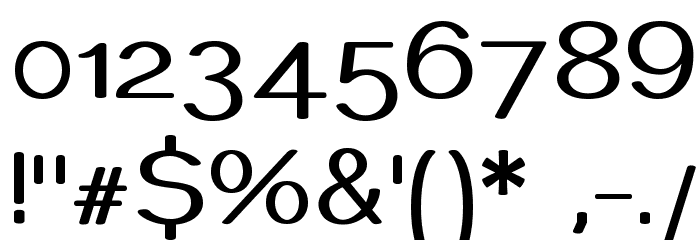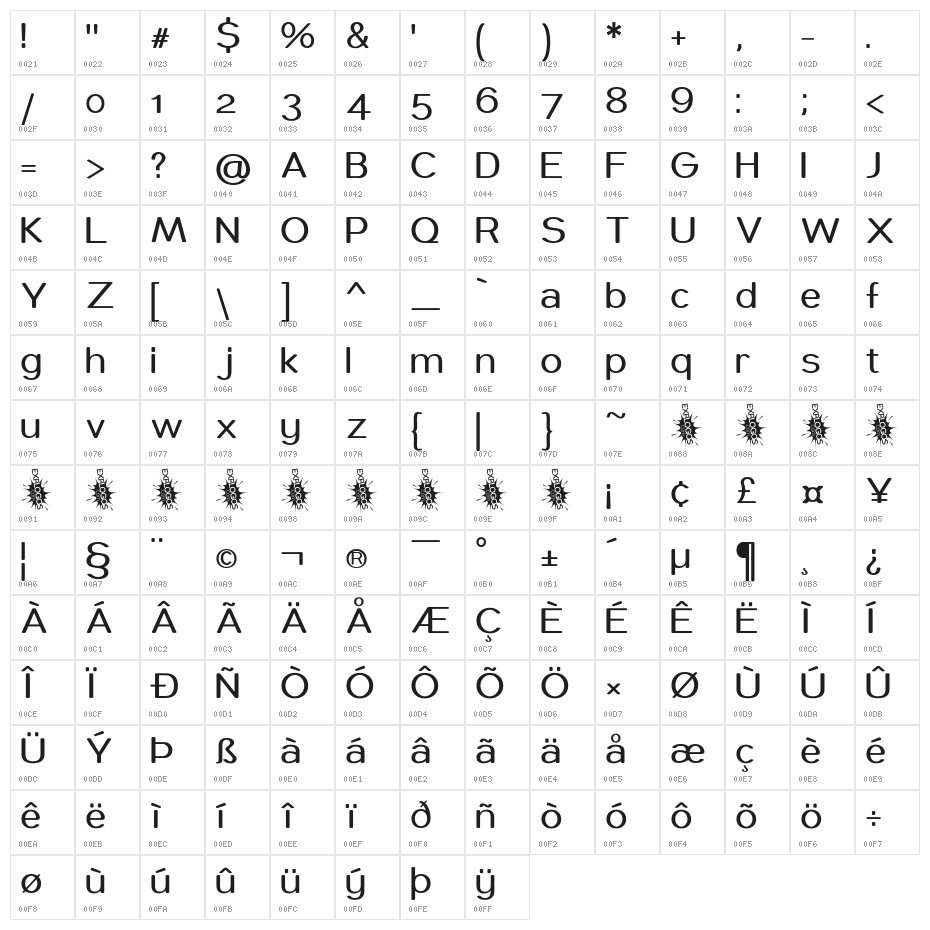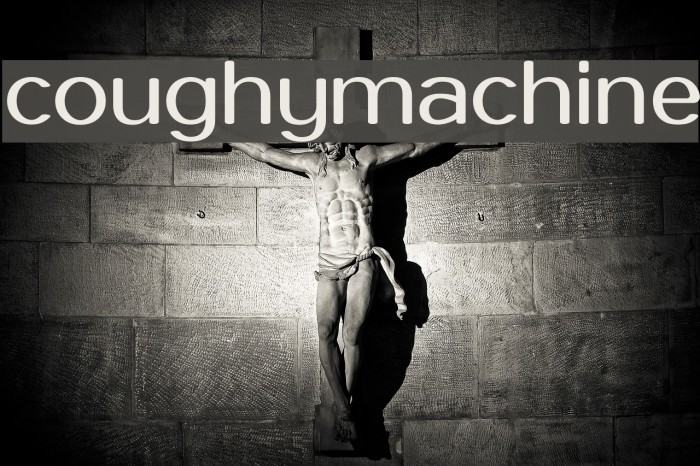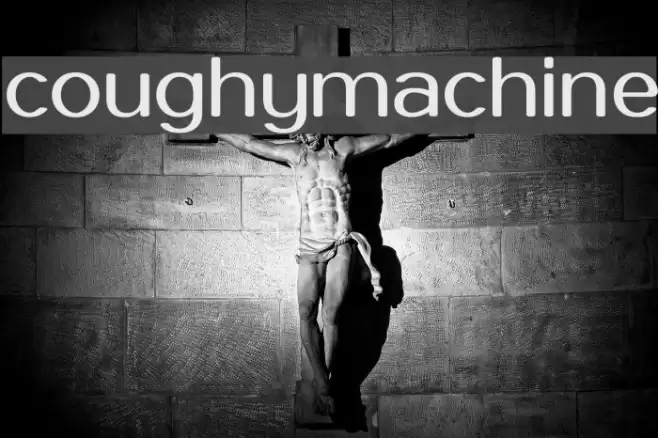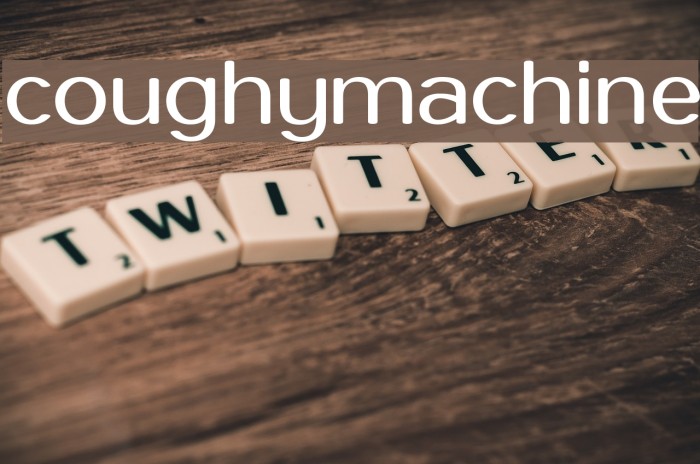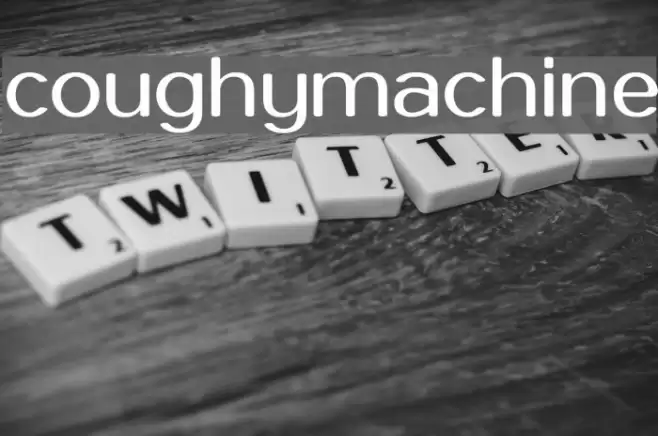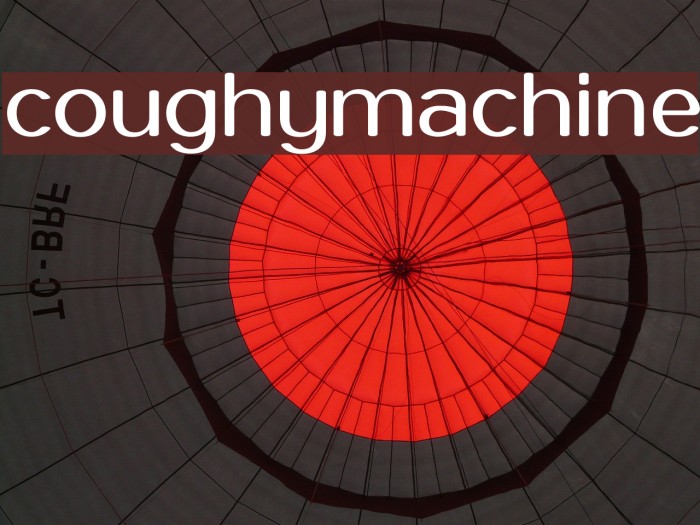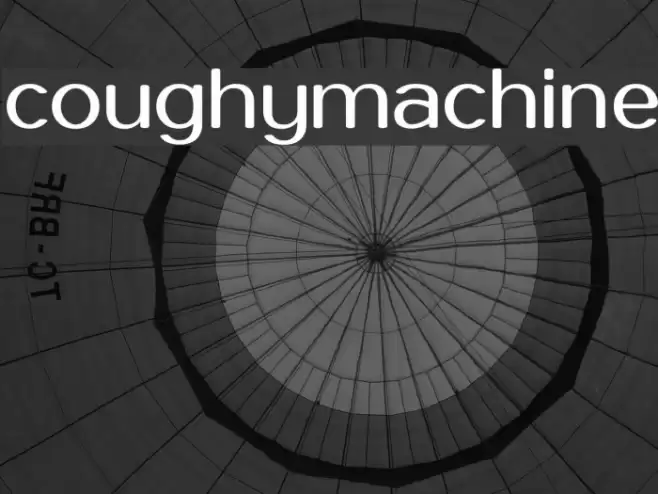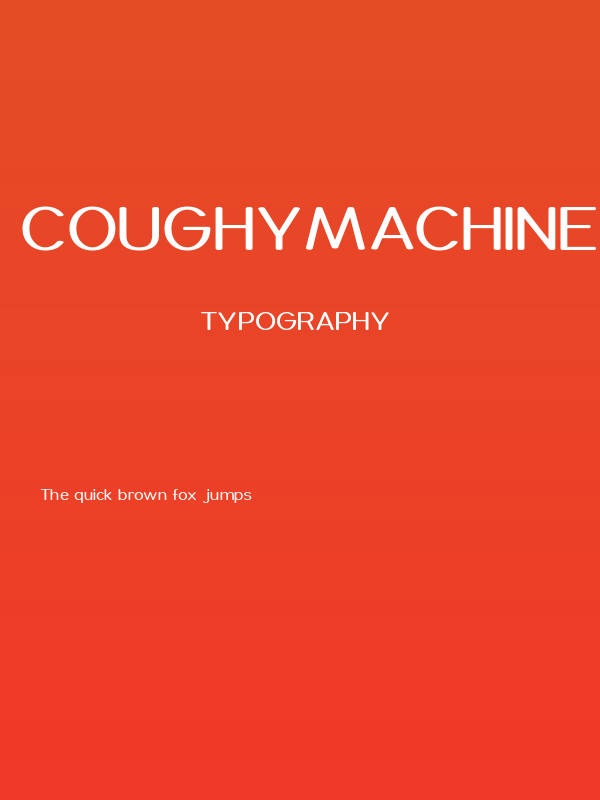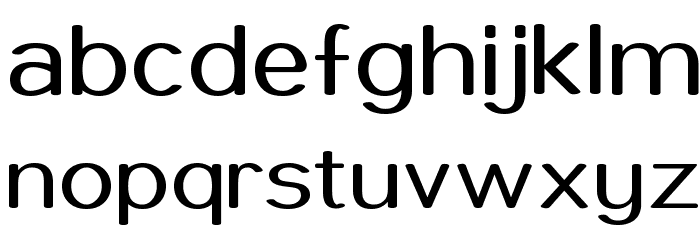
This font features a clean and modern sans-serif design, characterized by its smooth curves and uniform stroke width. The uppercase letters are bold and assertive, while the lowercase letters maintain a friendly and approachable appearance. The numbers are clear and easily distinguishable, making them suitable for both digital and print media. Special characters are well-integrated, ensuring versatility across various applications. The overall design is sleek and professional, making it ideal for contemporary branding and communication.
Use CaseHeadlines, Body text, Logos
Proposed ProjectsIdeal for branding, digital interfaces, advertising, and corporate communications.